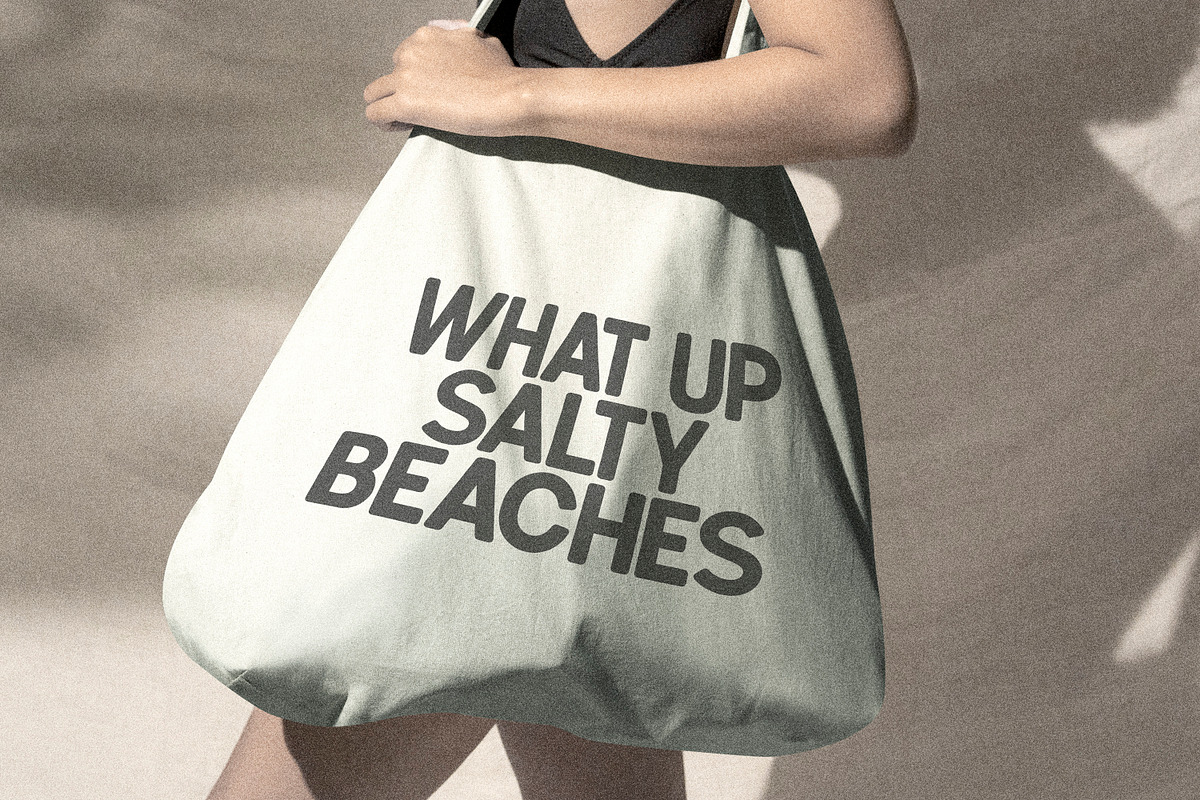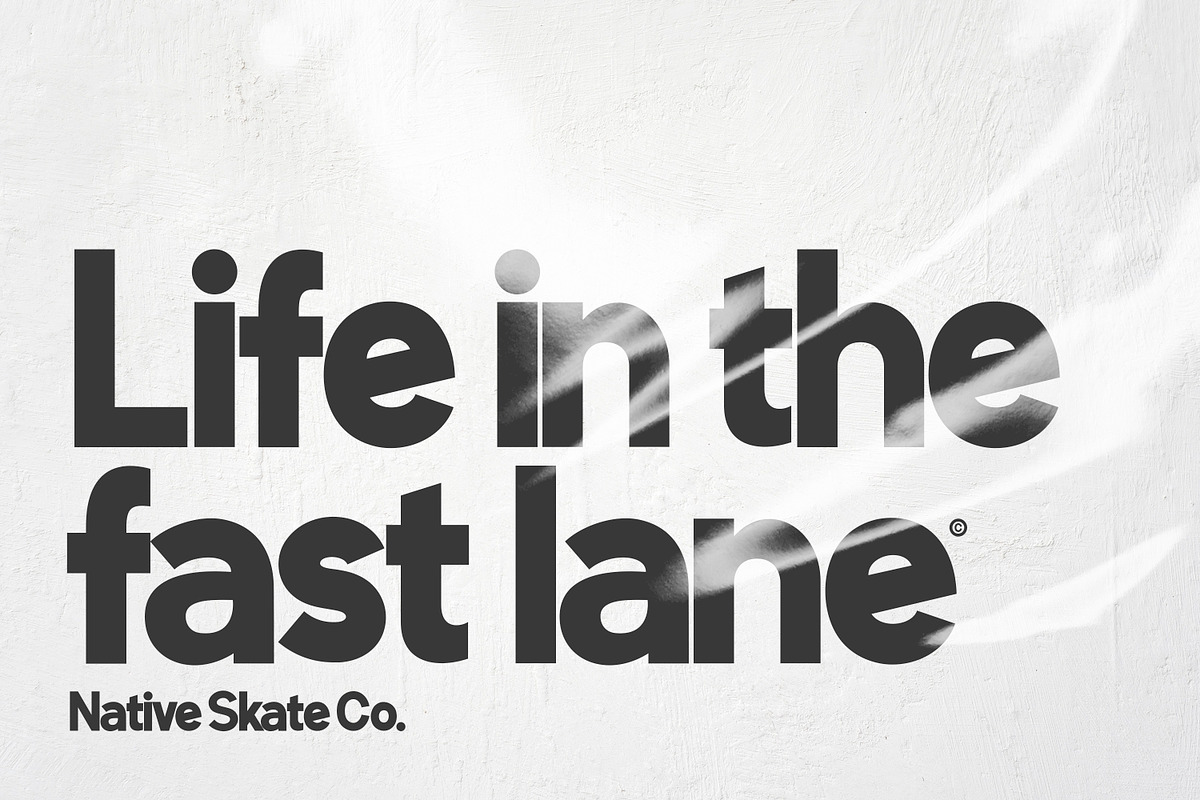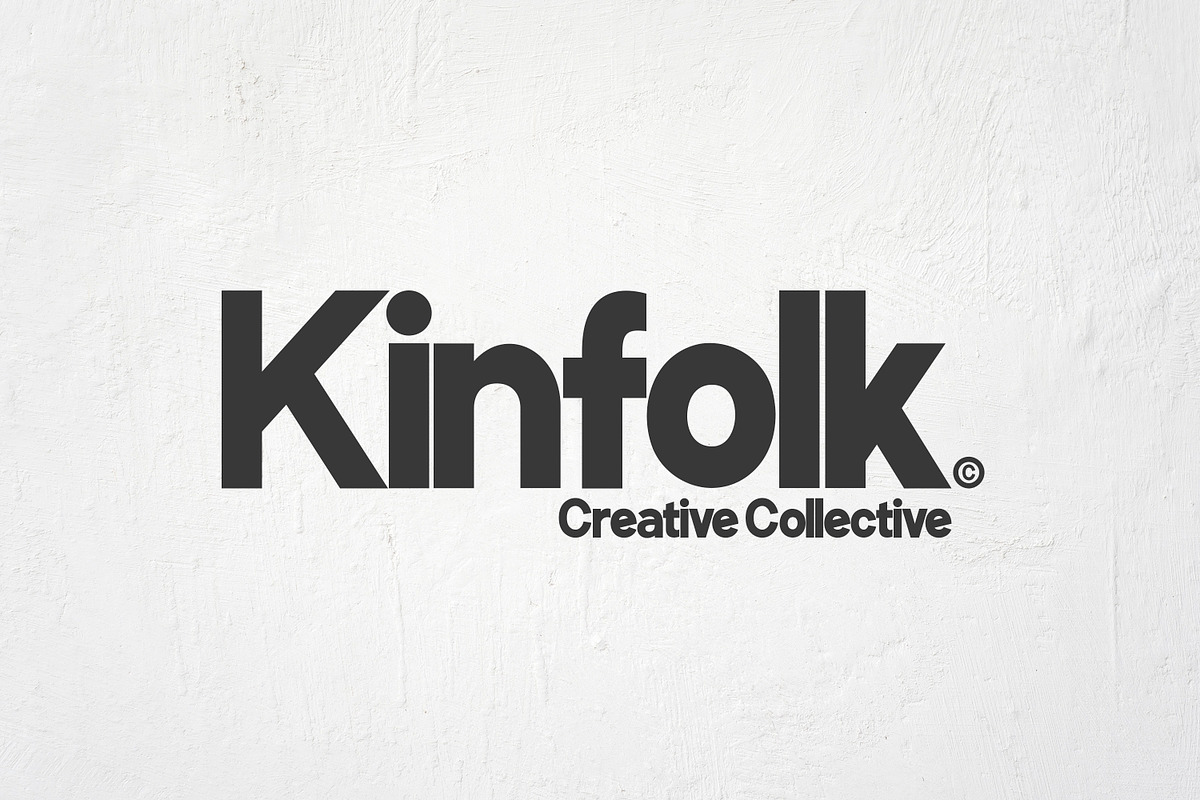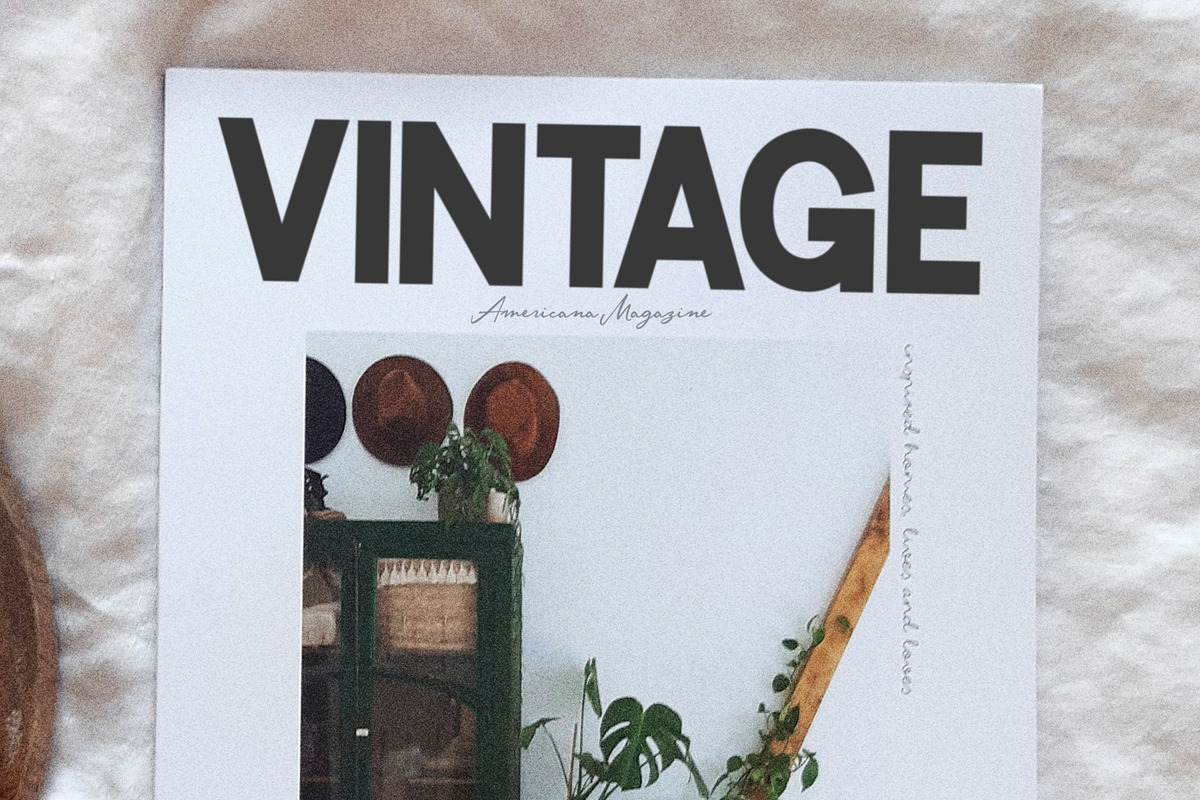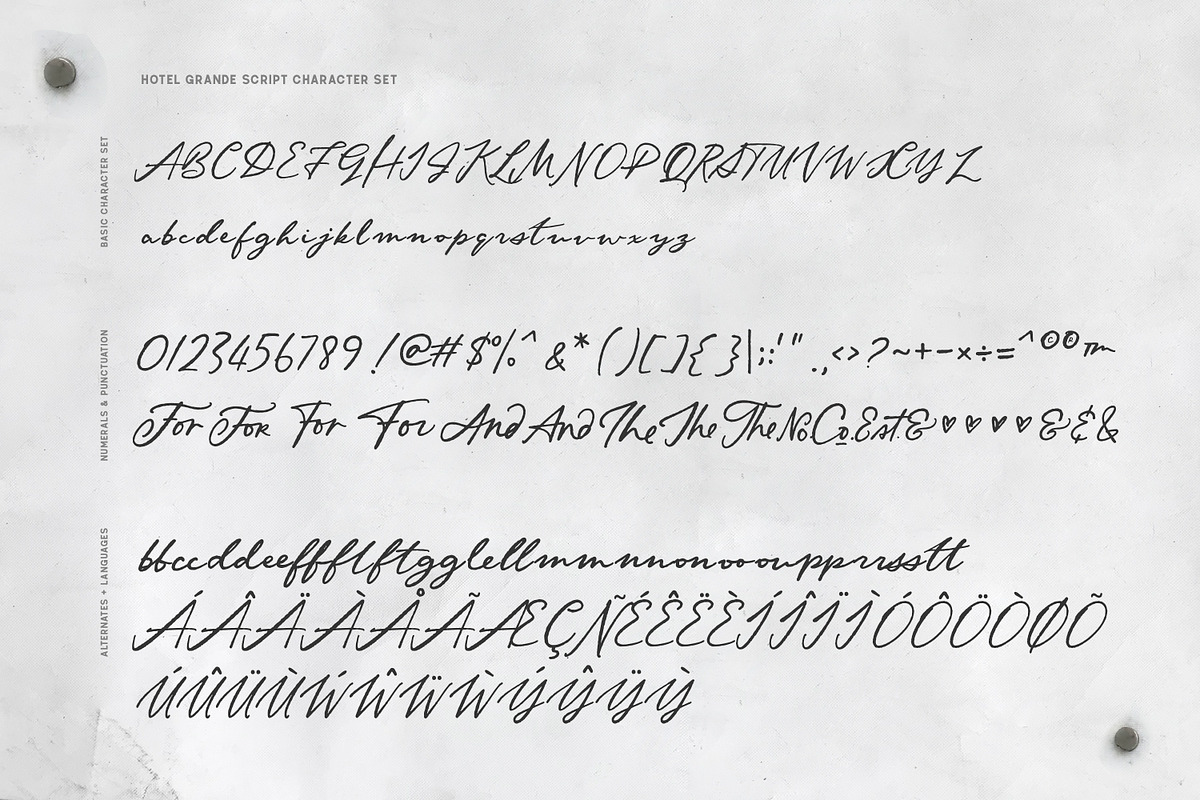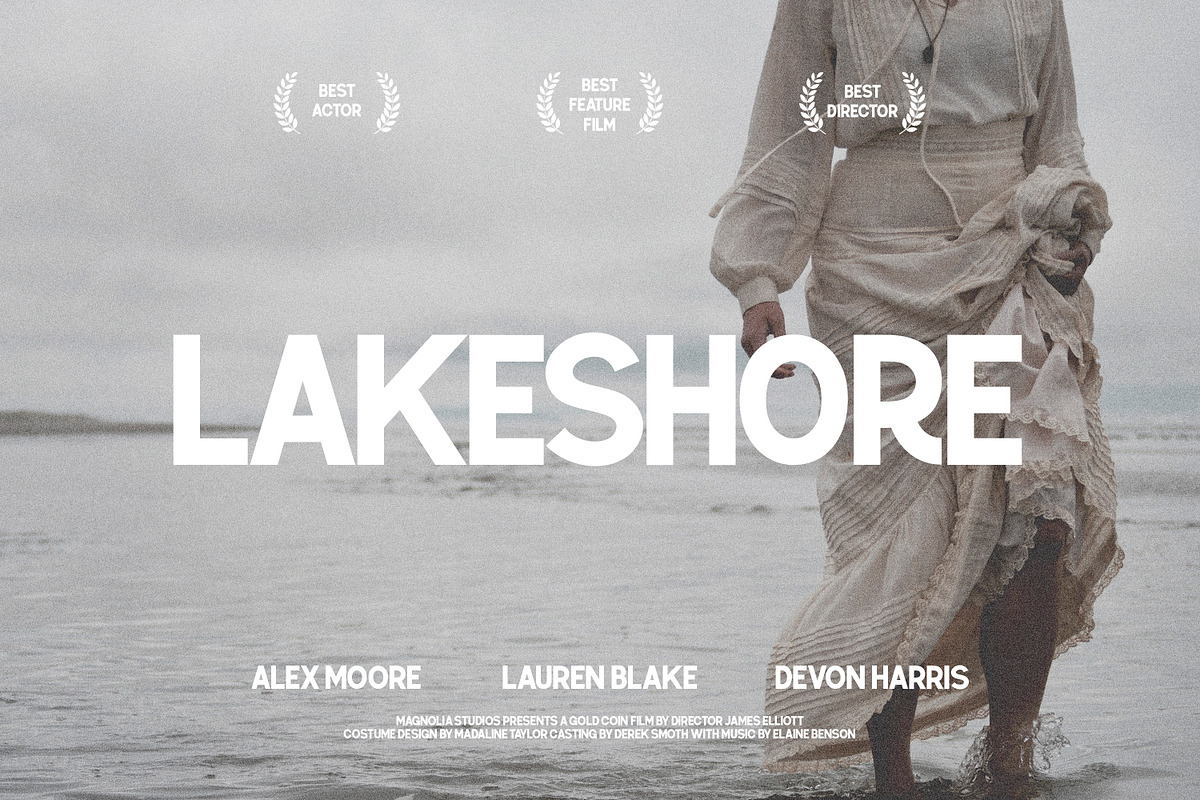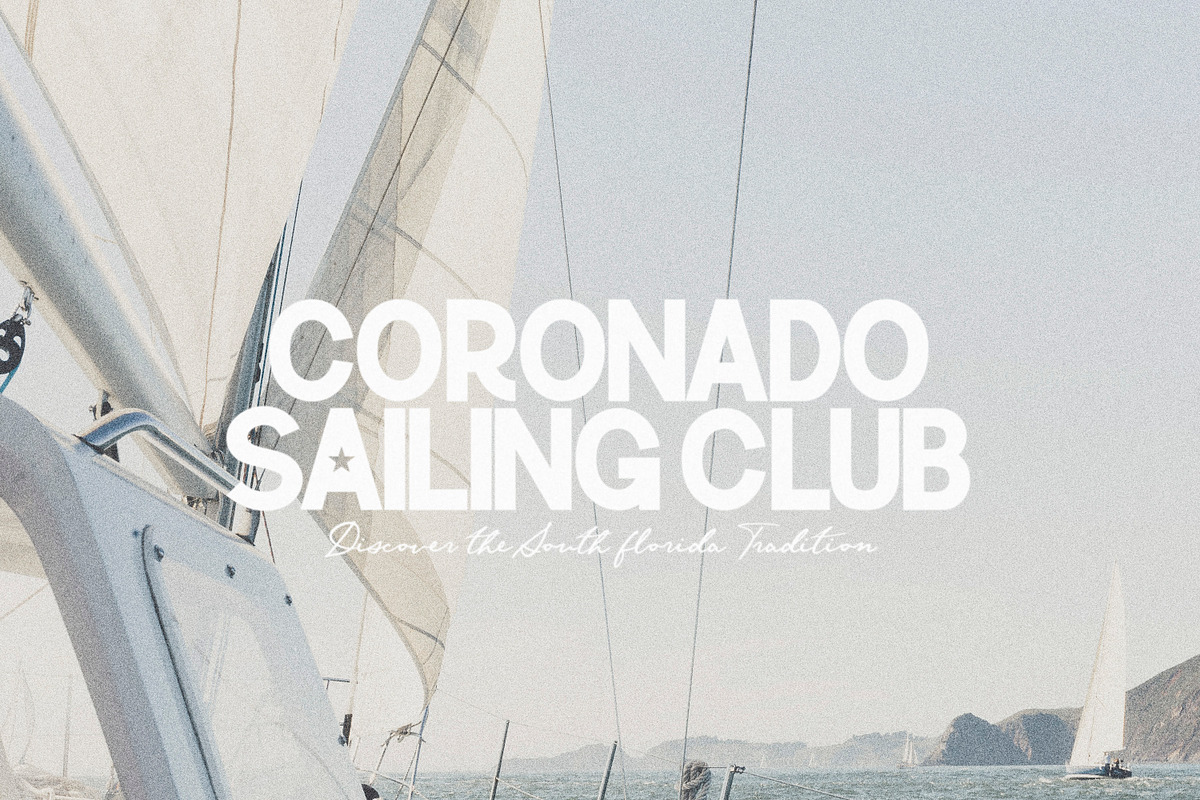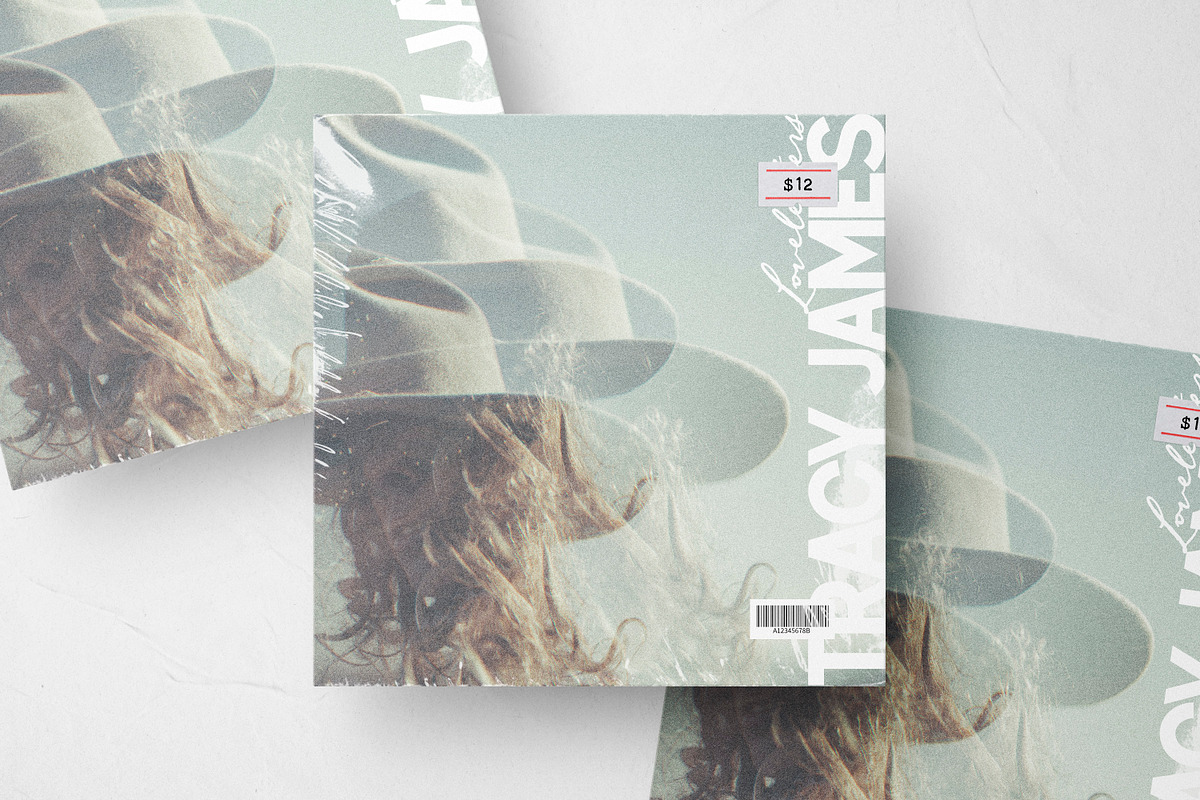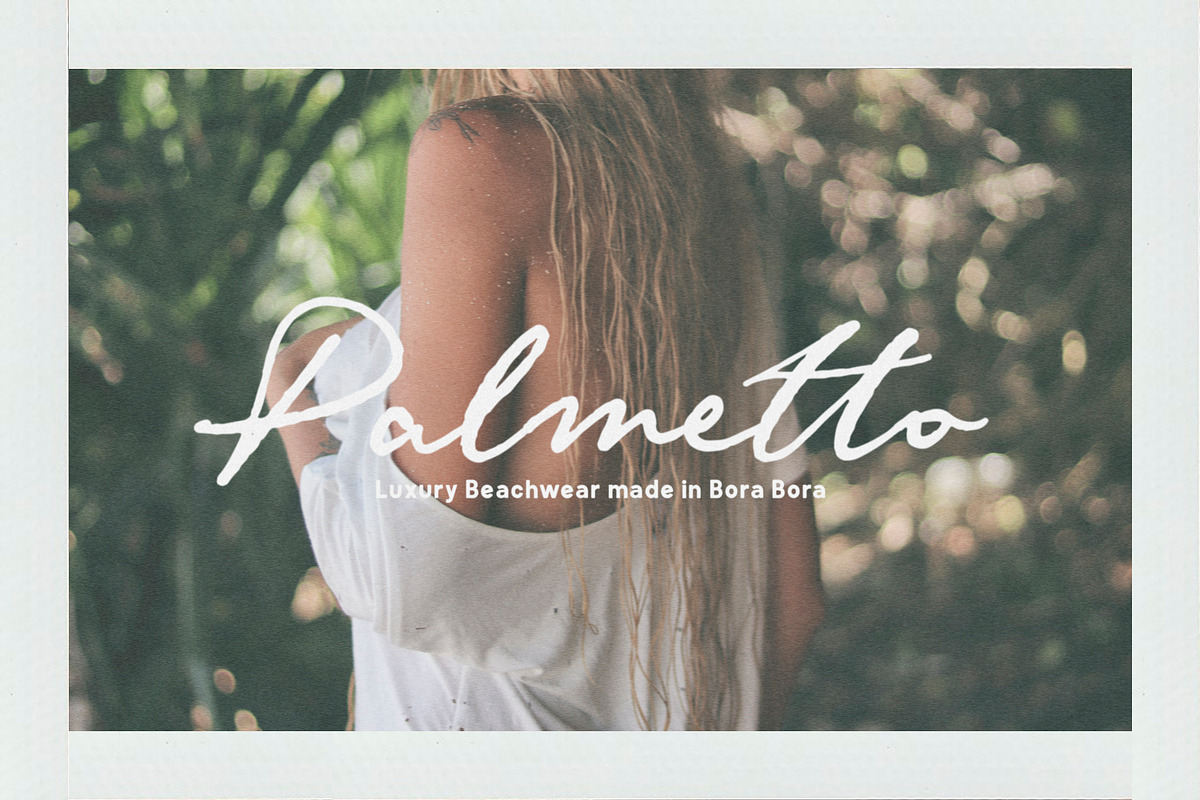
The Hotel Grande Type Collection
Say hello to The Hotel Grande! This nostalgic type collection offers a series of clean, headline fonts, paired with a delicate, hand-lettered script. This versatile combo boasts a classic feel, but also includes 70’s-inspired alternates that quickly lend retro vibes to your work. Use the combination for gorgeous logos and taglines, packaging, magazines, signage, apparel & loads more. :)
Enjoy discovering over 40 retro alternates in each serif font, plus double letter ligatures & decorative catchwords hidden within Hotel Grande script. I’ve packed LOADS of versatility into just 16 gorgeous fonts. :)